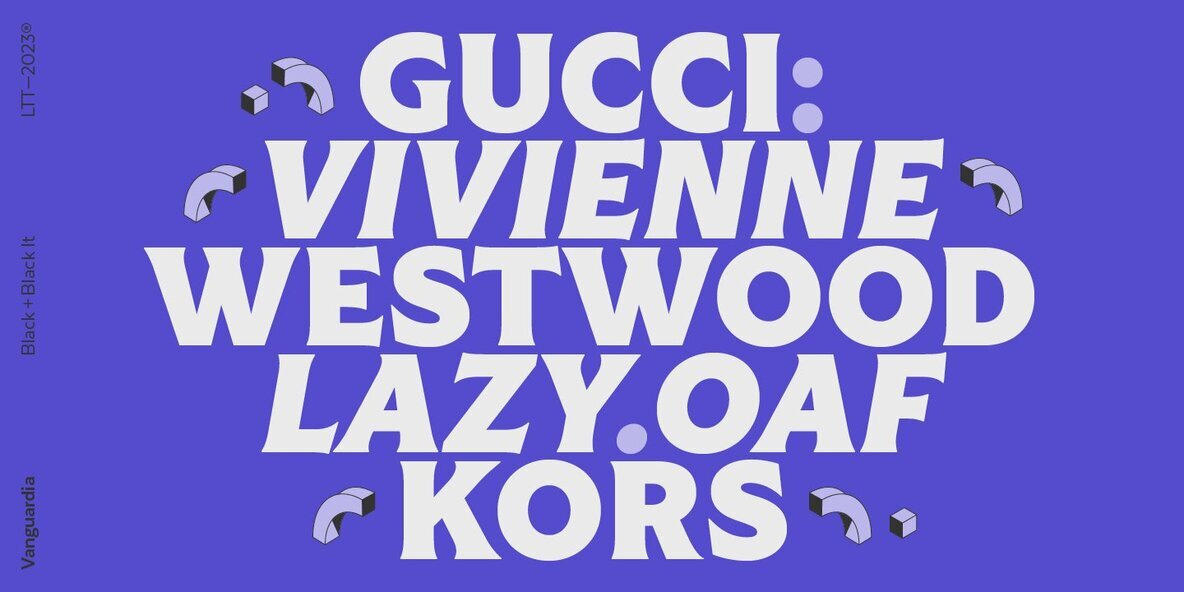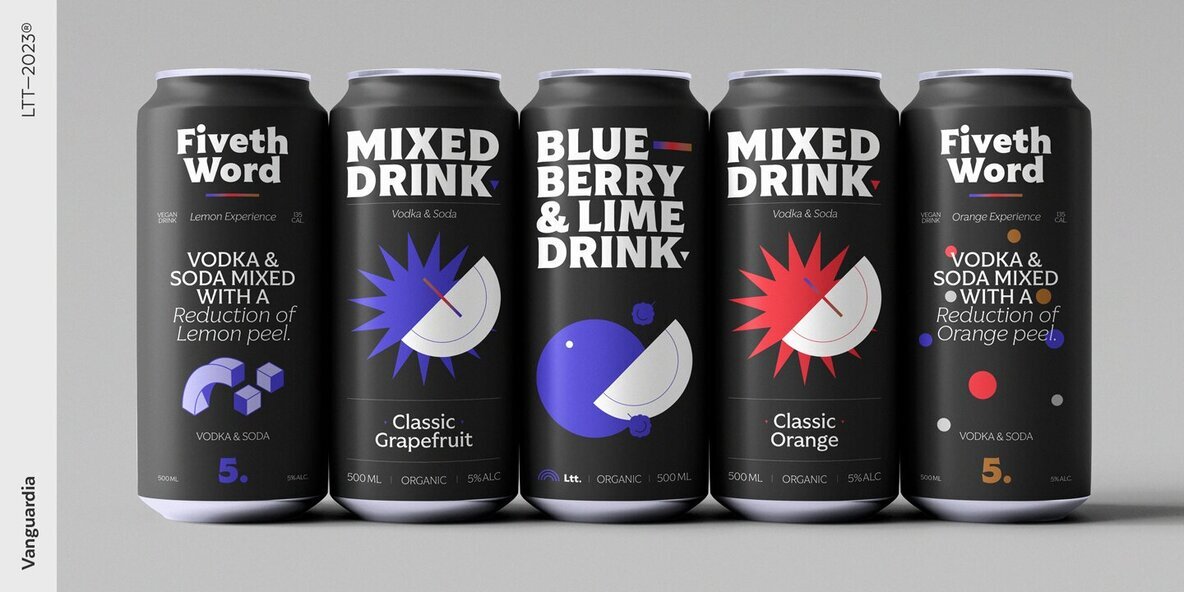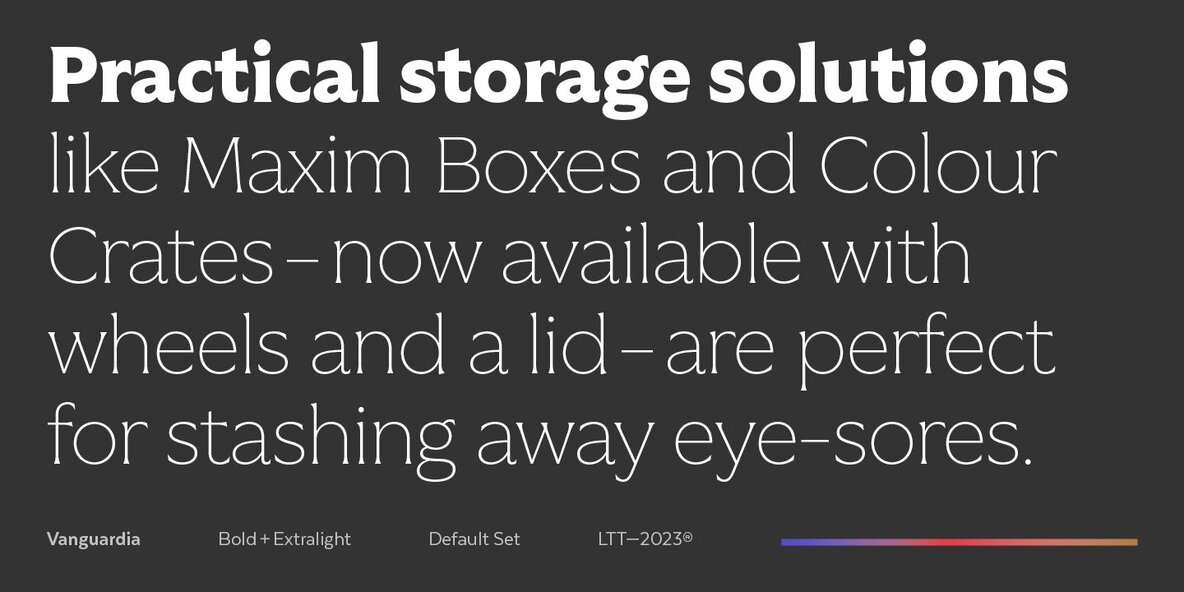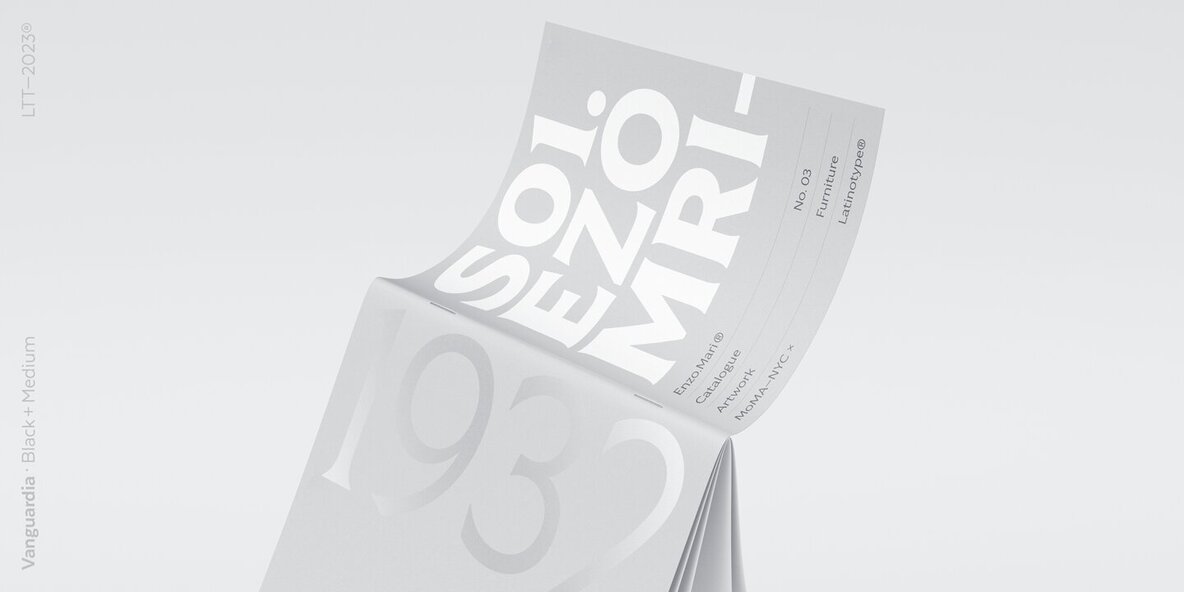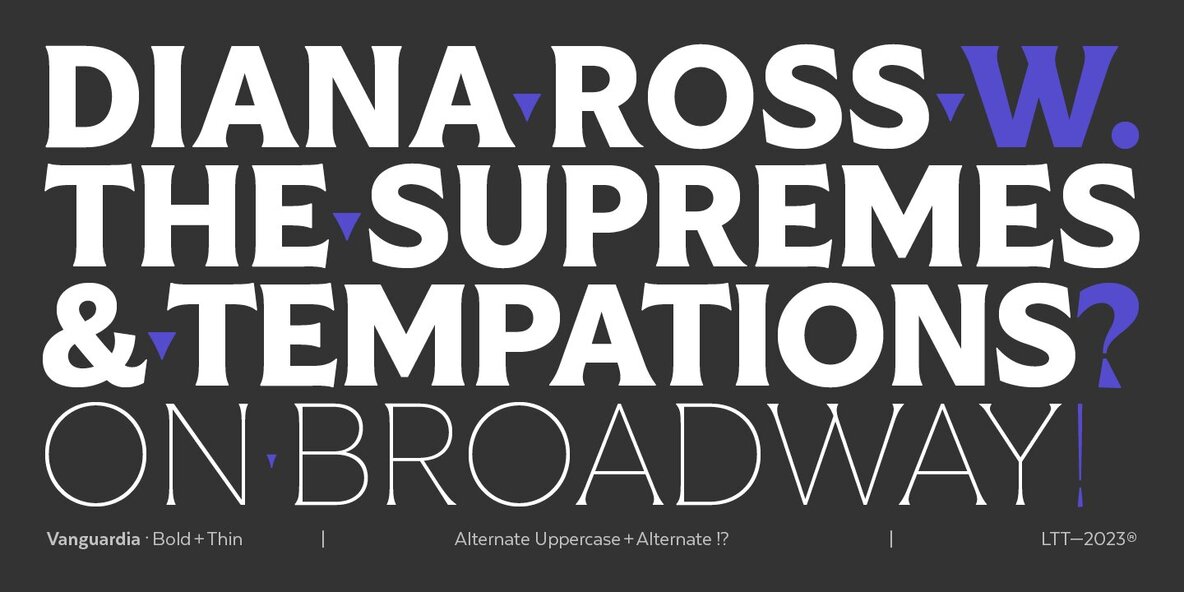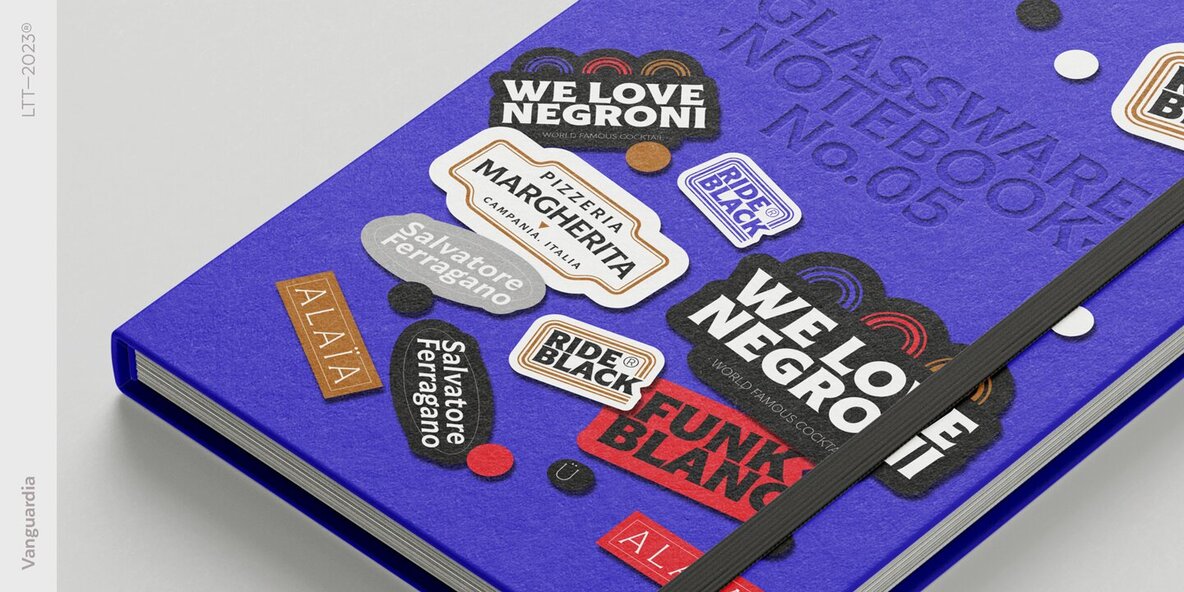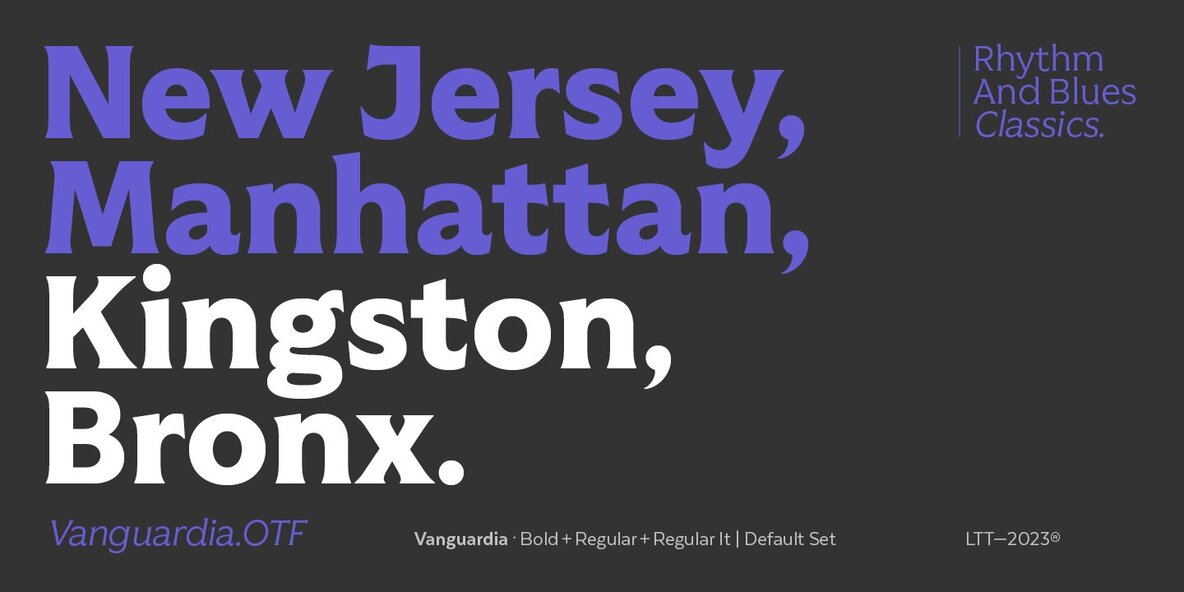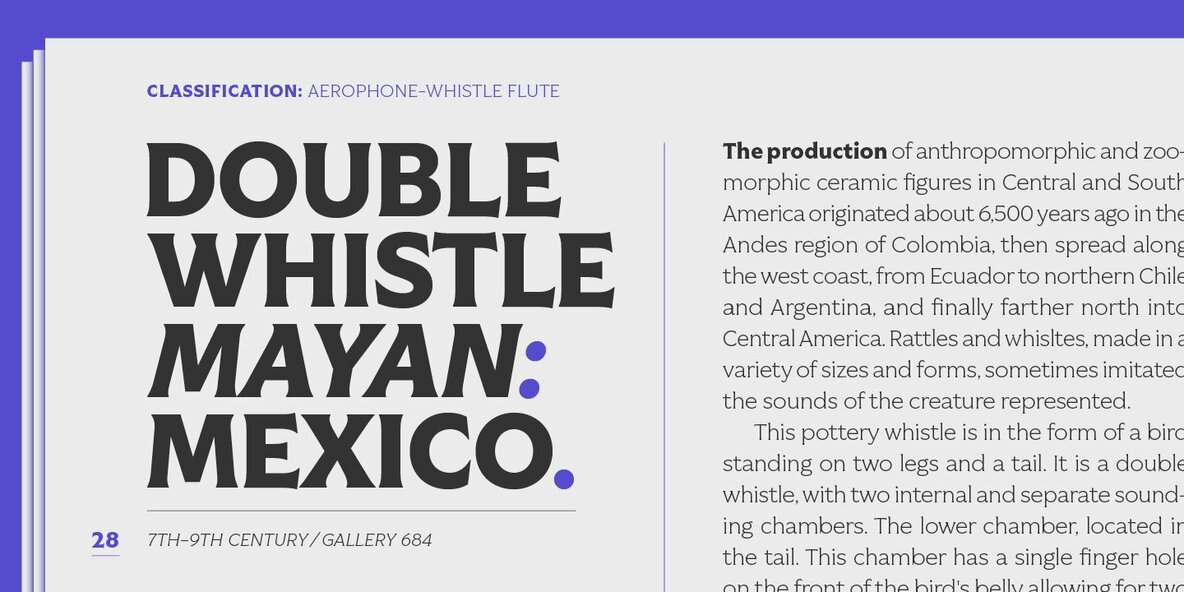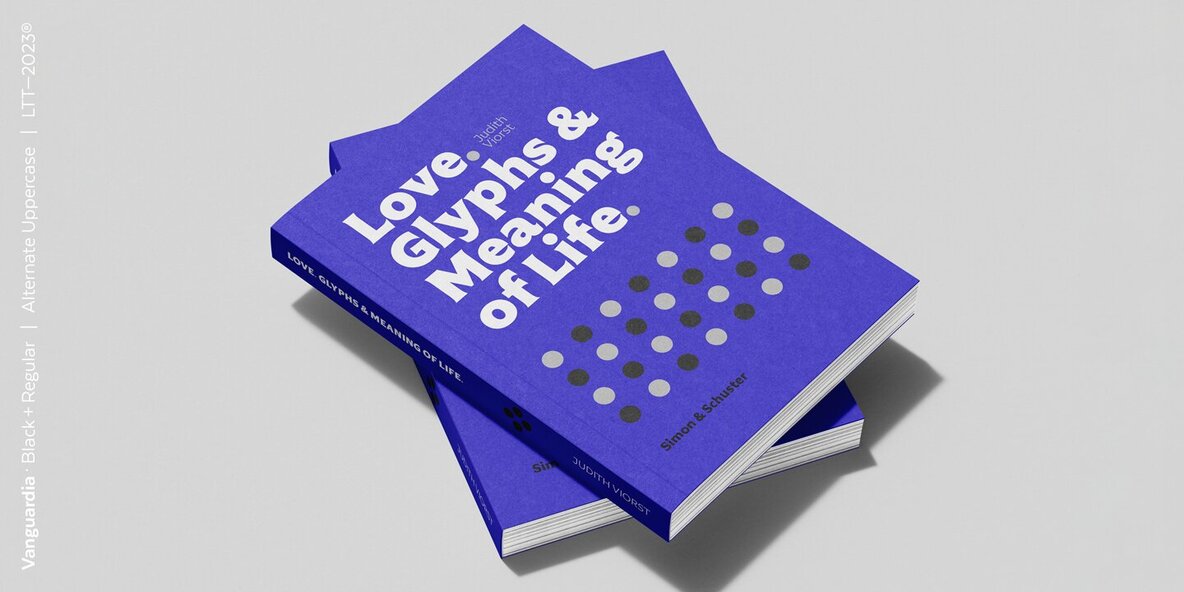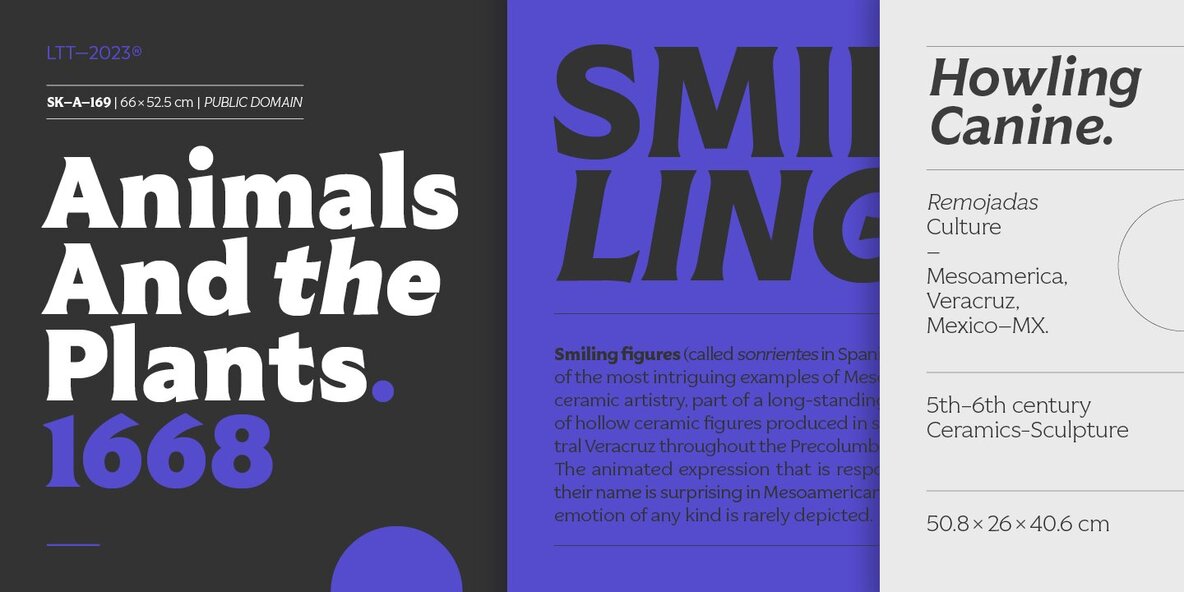
Vanguardia Font
Vanguardia is an expressive and modern monolinear serif family, which thanks to its low contrast it differentiates itself from traditional serif fonts. Its strikingly exaggerated terminals such as in the letters a, e, c, and C, S, G and E, etc. Together with its diagonal cuts, gives it a very unique character. It is ideal for logos, branding, packaging, high-impact titles, labels, liquor and beverage packaging, as well as use in web, film and television. Vanguardia comes with 8 weights, from fine to black, and matching italics, resulting in a total of 16 fonts. Each font style supports more than 200 Latin languages, Vanguardia also includes a basic Cyrillic set.